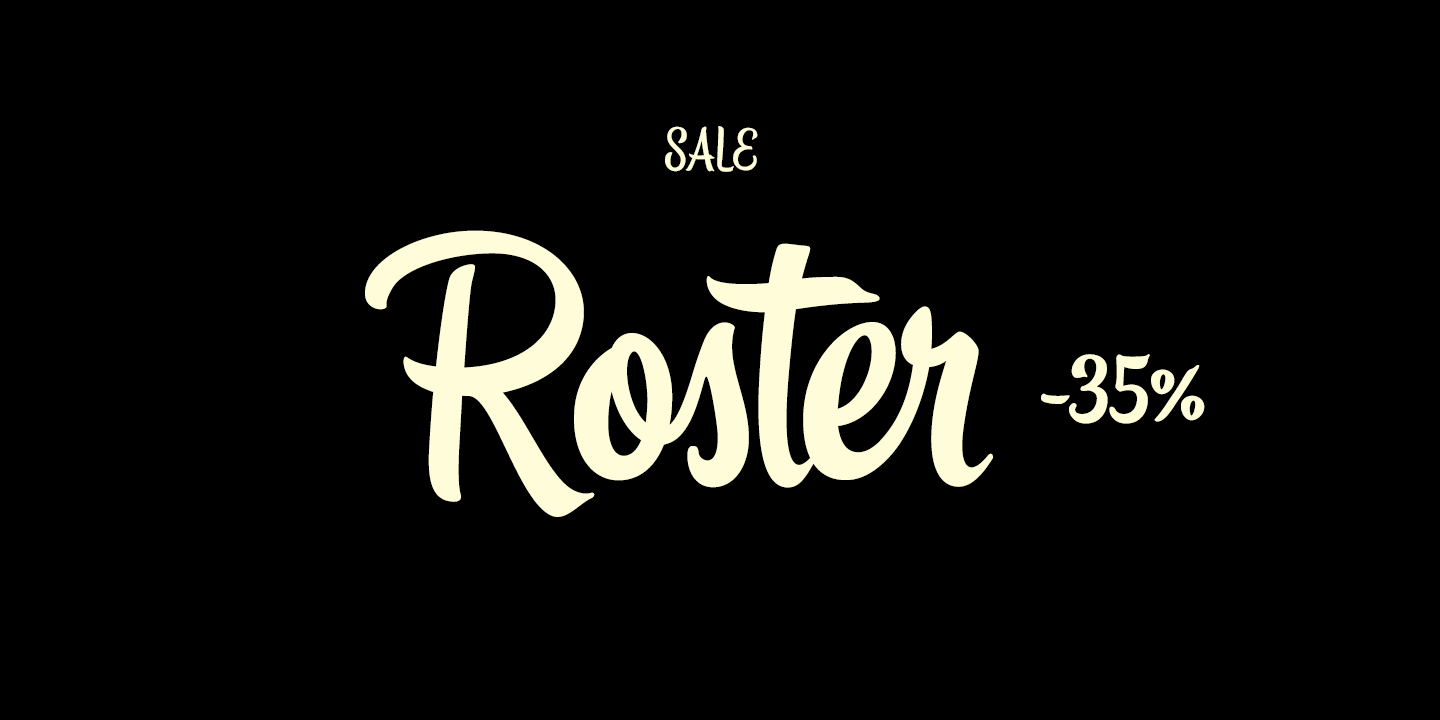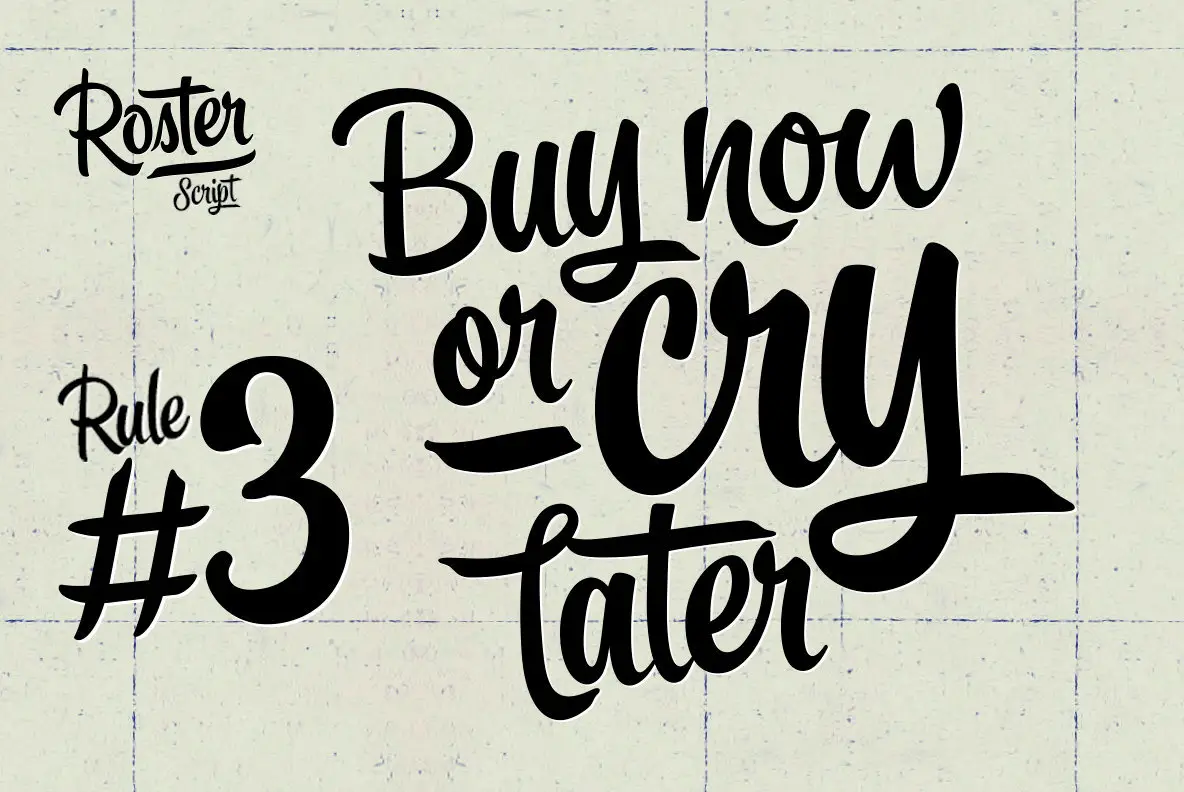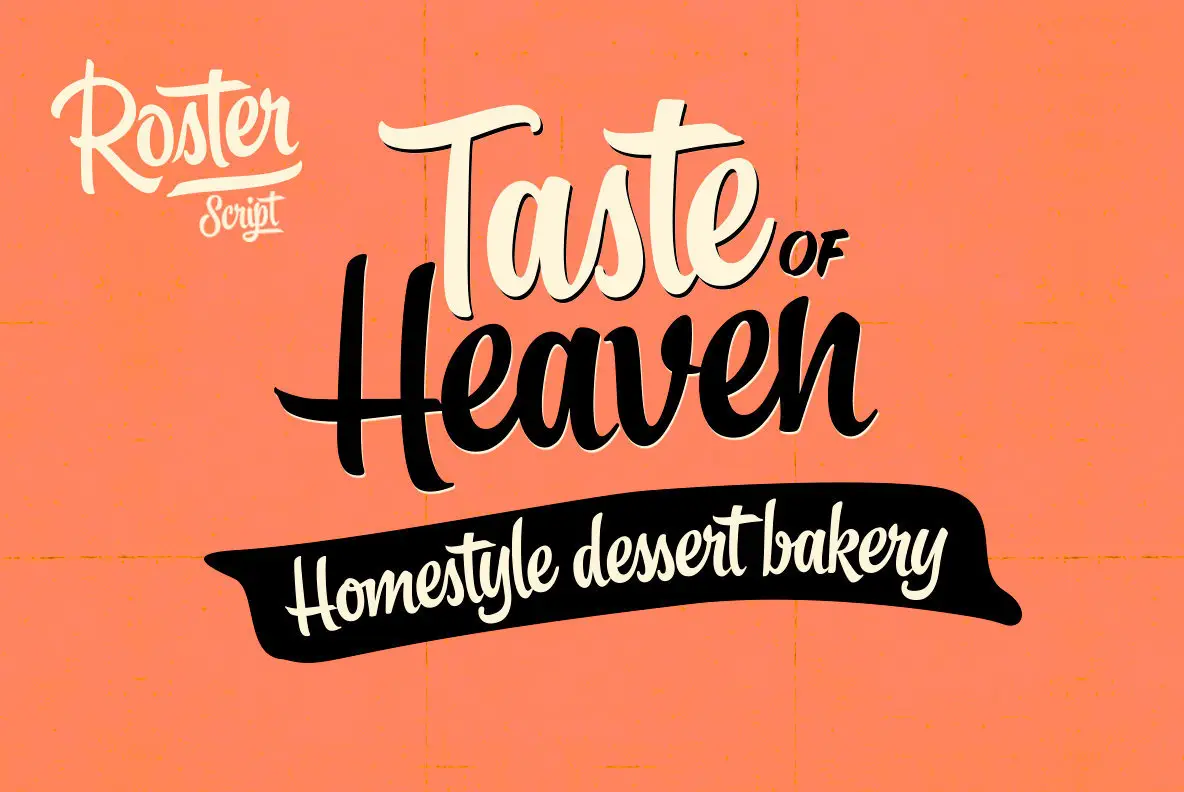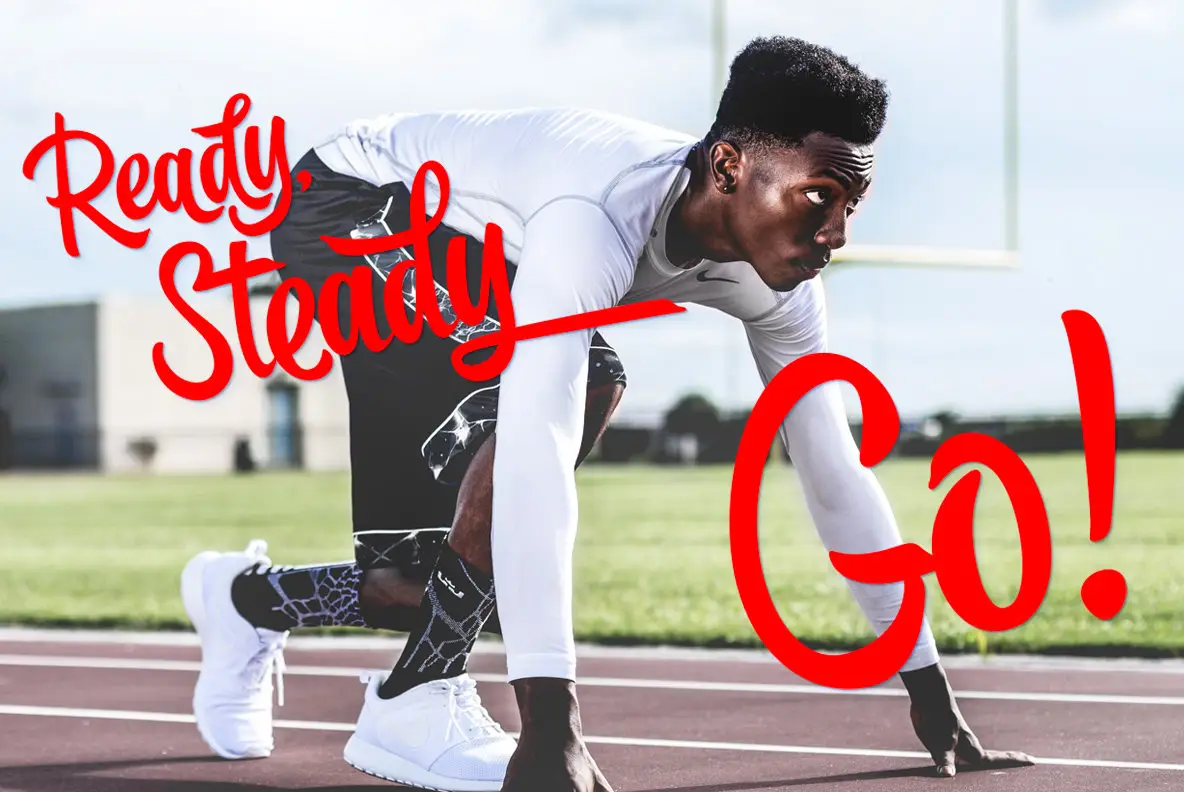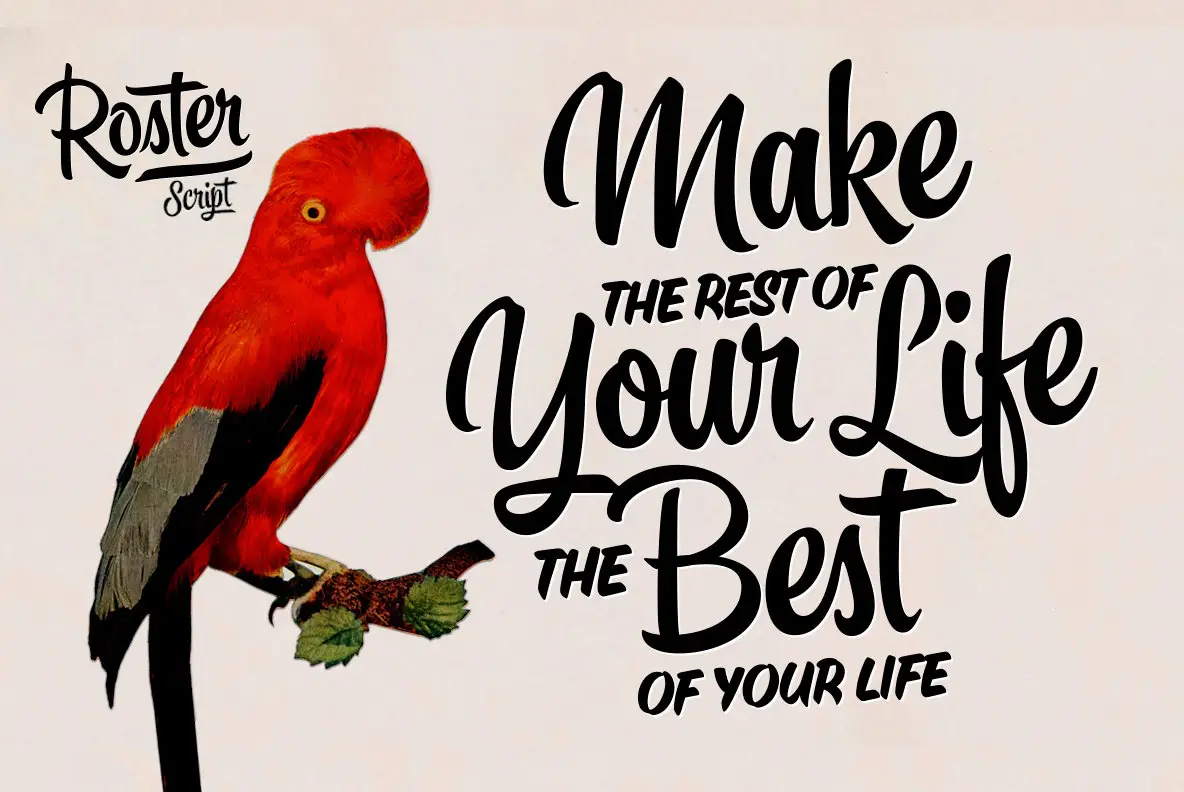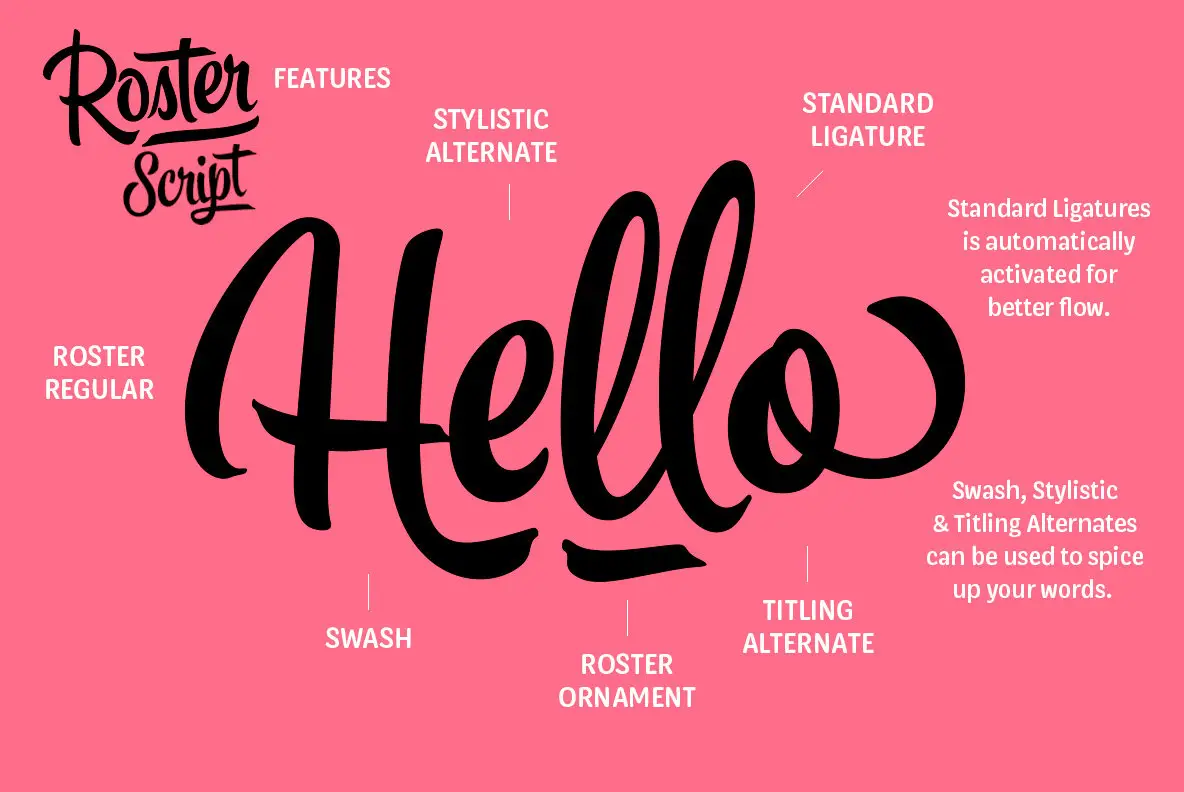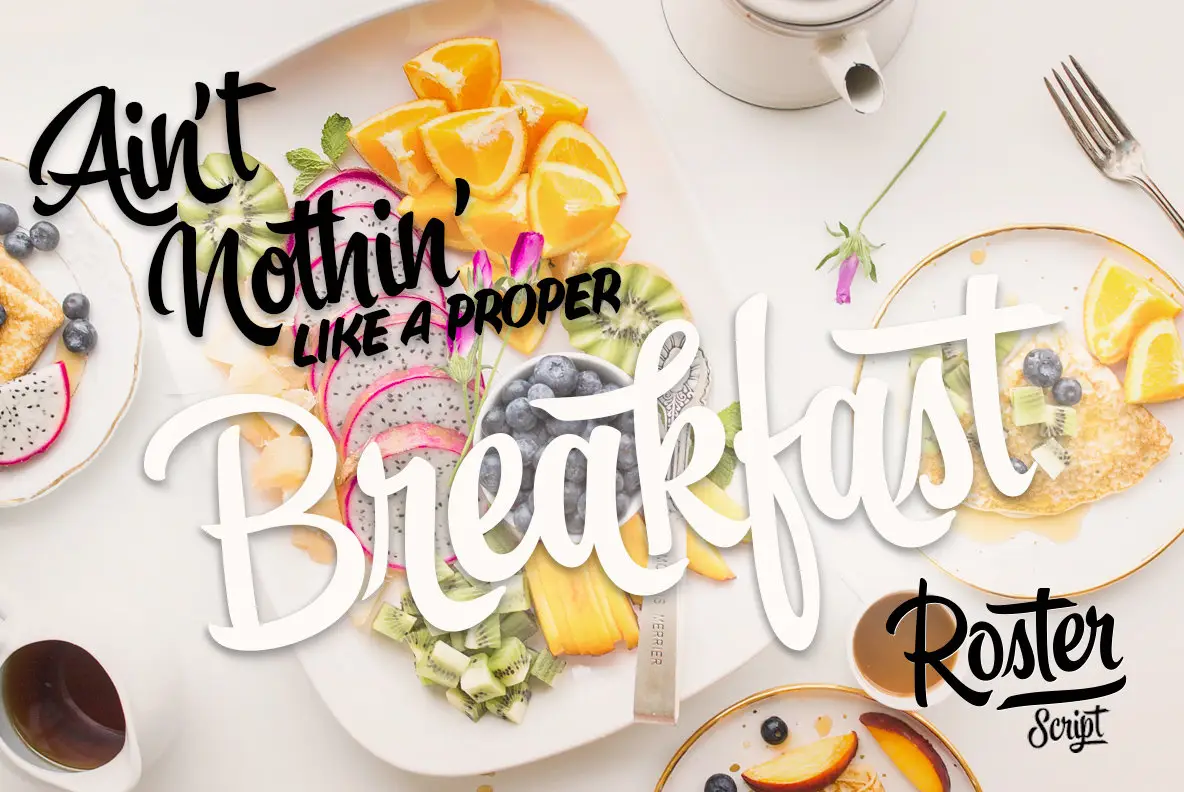
Roster Caps Font . Roster is great for any kind display use from advertising. Rostercaps version 1.000 font (font family name: Thousands of designers (famous or not) use the image font detection system to find a font or similar free fonts from an image. Font glyphs view all 349 glyphs. This typeface has four styles and was published by. Roster is a strong brush script family of two weights, caps and a set of ornaments. Roster is a strong brush script family of two weights, caps and a set of ornaments. Fonts are available in truetype, opentype and. Roster is great for any kind display use from. Regular), 382 characters in total. Since uppercase letters in roster are mainly designed as initials i made roster caps for an all caps version of the capital letters. Roster caps can be used on it’s own or to. Roster brush is a brush display, brush script and dingbat font family.
Font glyphs view all 349 glyphs. Roster brush is a brush display, brush script and dingbat font family. Roster is great for any kind display use from advertising. Regular), 382 characters in total. Rostercaps version 1.000 font (font family name: Roster is a strong brush script family of two weights, caps and a set of ornaments. Roster is great for any kind display use from. Roster is a strong brush script family of two weights, caps and a set of ornaments. Roster caps can be used on it’s own or to. This typeface has four styles and was published by.
Roster Caps Font Regular), 382 characters in total. Font glyphs view all 349 glyphs. Roster brush is a brush display, brush script and dingbat font family. Roster is great for any kind display use from. Roster caps can be used on it’s own or to. Fonts are available in truetype, opentype and. Thousands of designers (famous or not) use the image font detection system to find a font or similar free fonts from an image. Rostercaps version 1.000 font (font family name: This typeface has four styles and was published by. Roster is a strong brush script family of two weights, caps and a set of ornaments. Roster is a strong brush script family of two weights, caps and a set of ornaments. Roster is great for any kind display use from advertising. Since uppercase letters in roster are mainly designed as initials i made roster caps for an all caps version of the capital letters.
Roster Font YouWorkForThem Roster Caps Font Thousands of designers (famous or not) use the image font detection system to find a font or similar free fonts from an image. Roster caps can be used on it’s own or to. Roster is a strong brush script family of two weights, caps and a set of ornaments. Roster is great for any kind display use from advertising. Roster. Roster Caps Font.
Roster Font Family by Fenotype Font Bros Roster Caps Font This typeface has four styles and was published by. Roster is a strong brush script family of two weights, caps and a set of ornaments. Rostercaps version 1.000 font (font family name: Roster is a strong brush script family of two weights, caps and a set of ornaments. Roster is great for any kind display use from advertising. Roster brush. Roster Caps Font.
Roster Font font & Desktop MyFonts Roster Caps Font Roster is great for any kind display use from advertising. Roster is a strong brush script family of two weights, caps and a set of ornaments. Roster is great for any kind display use from. Font glyphs view all 349 glyphs. Regular), 382 characters in total. This typeface has four styles and was published by. Since uppercase letters in roster. Roster Caps Font.
Roster Font YouWorkForThem Roster Caps Font Fonts are available in truetype, opentype and. Rostercaps version 1.000 font (font family name: Thousands of designers (famous or not) use the image font detection system to find a font or similar free fonts from an image. Roster is great for any kind display use from advertising. Font glyphs view all 349 glyphs. Roster caps can be used on it’s. Roster Caps Font.
Roster Regular Download For Free, View Sample Text, Rating And More On Roster Caps Font Rostercaps version 1.000 font (font family name: Roster brush is a brush display, brush script and dingbat font family. This typeface has four styles and was published by. Roster is a strong brush script family of two weights, caps and a set of ornaments. Roster is great for any kind display use from. Roster caps can be used on it’s. Roster Caps Font.
Roster W00 Caps Fonts Downloads Roster Caps Font Roster is a strong brush script family of two weights, caps and a set of ornaments. Thousands of designers (famous or not) use the image font detection system to find a font or similar free fonts from an image. Fonts are available in truetype, opentype and. Font glyphs view all 349 glyphs. Since uppercase letters in roster are mainly designed. Roster Caps Font.
Roster Font Family by Fenotype Font Bros Roster Caps Font Roster caps can be used on it’s own or to. Since uppercase letters in roster are mainly designed as initials i made roster caps for an all caps version of the capital letters. Roster is great for any kind display use from. Roster is a strong brush script family of two weights, caps and a set of ornaments. Roster is. Roster Caps Font.
Roster Typography, Typographic design, Slab serif fonts Roster Caps Font Regular), 382 characters in total. Thousands of designers (famous or not) use the image font detection system to find a font or similar free fonts from an image. This typeface has four styles and was published by. Font glyphs view all 349 glyphs. Roster is great for any kind display use from advertising. Fonts are available in truetype, opentype and.. Roster Caps Font.
Roster Rospeky Font by alonkelakon · Creative Fabrica Roster Caps Font Roster caps can be used on it’s own or to. Since uppercase letters in roster are mainly designed as initials i made roster caps for an all caps version of the capital letters. Regular), 382 characters in total. Fonts are available in truetype, opentype and. This typeface has four styles and was published by. Roster is a strong brush script. Roster Caps Font.